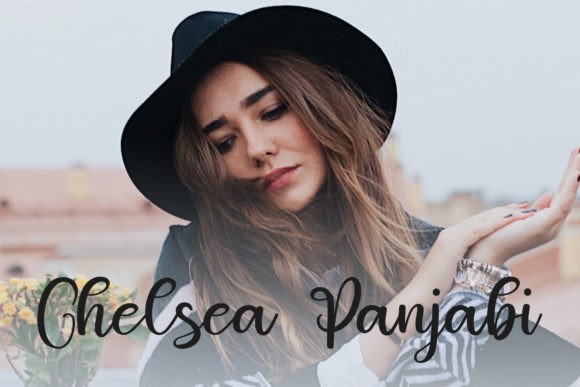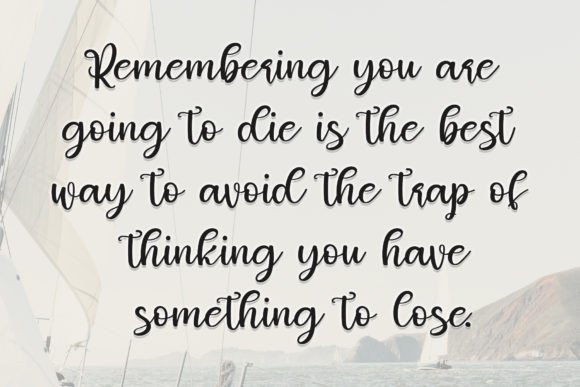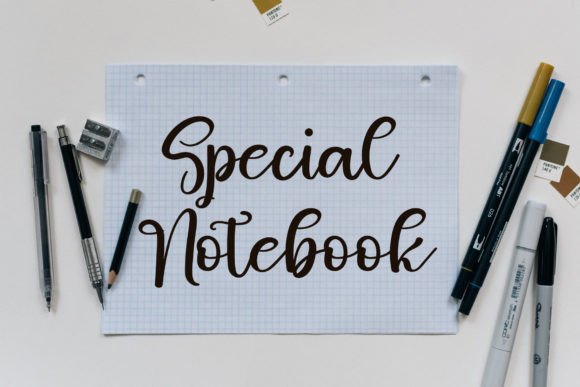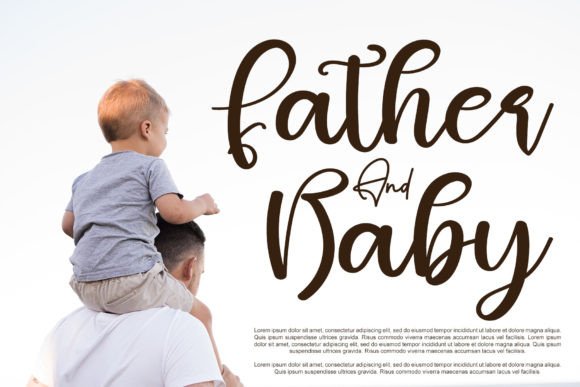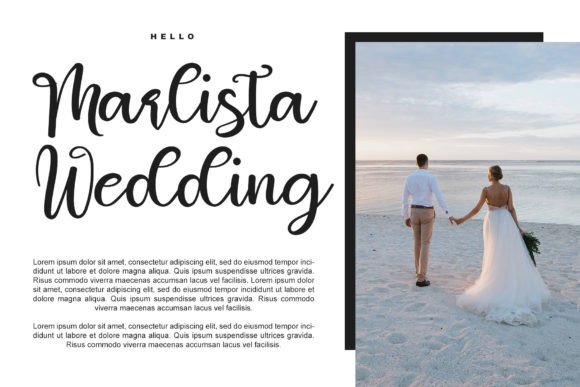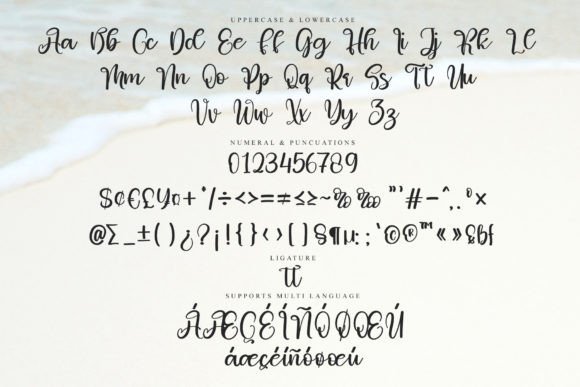
The Elusive Perfect Font: My Encounter with Balking
As a designer, I’ve had my fair share of late nights scrolling through font libraries, searching for that one perfect typeface to elevate a project. I recall working on a wedding invitation design, determined to create something elegant and timeless. My client wanted a font that exuded sophistication, but I was stuck. That was until I stumbled upon Balking, a stylish handwritten font that instantly caught my eye.
First Impressions: A Love Affair with Balking
Balking is more than just a font; it’s a statement piece. Inspired by timeless classic calligraphy, it brings a contemporary atmosphere to any project while maintaining impeccable form. The balance and variation in its design make it a versatile choice for a wide range of creative endeavors.
- ✨ Elegant and sophisticated feel, perfect for high-end projects
- ✅ Highly legible, even at smaller sizes
- 💫 Beautifully crafted with attention to detail, showcasing a high level of craftsmanship
- 🌈 Versatile and adaptable to various design contexts, from digital to print
While Balking is an excellent choice for many projects, there are a few things to consider:
- ⚠️ It might not be the best fit for very casual or playful designs, as it leans more towards elegance and sophistication
- 🤔 Some users might find the font a bit too ornate for body text, making it more suitable for headings or titles
- Take advantage of stylistic alternates and OpenType features to customize your text.
The Story Behind Balking: Designer Inspiration
Balking was created with the intention of bridging the gap between classic calligraphy and modern design needs. The designer aimed to craft a font that feels both timeless and contemporary, suitable for a wide array of creative projects. Through meticulous attention to detail and a passion for typography, Balking was born – a font that embodies elegance, versatility, and a touch of sophistication.
Q: Is Balking suitable for body text?
A: While Balking is highly legible, its elegant and somewhat ornate design makes it more suitable for headings or titles. For body text, a simpler font might be more appropriate.
Q: Does Balking support OpenType features?
A: Yes, Balking supports OpenType features, including stylistic alternates and glyphs, allowing for a high level of customization and creativity in your designs.